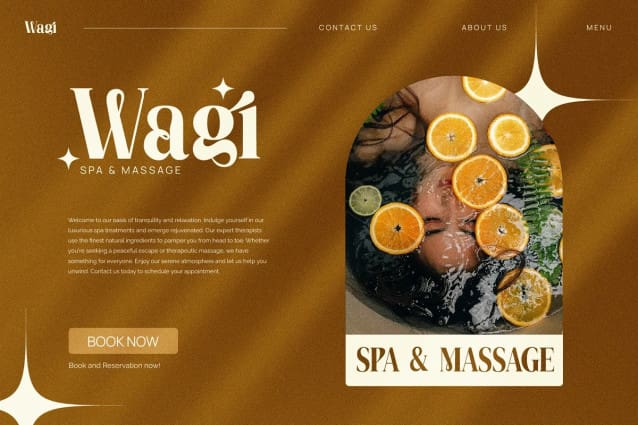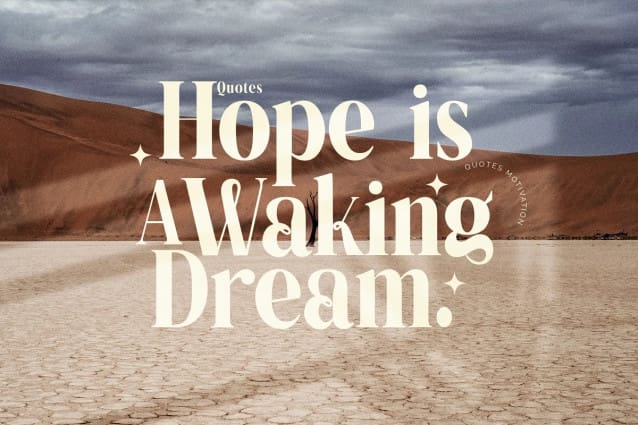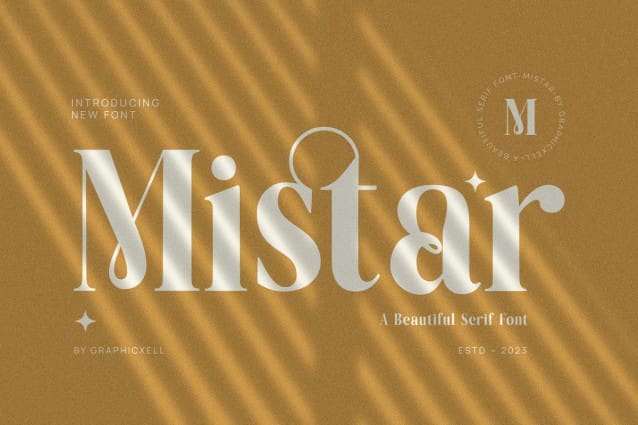
Mistar Font
Mistar Font, inspired by the famous minimalist logo perfect for the purposes of designing templates, brochures, videos, advertising branding, logos, invitation, layout design, elegant crafting, beauty design and more.